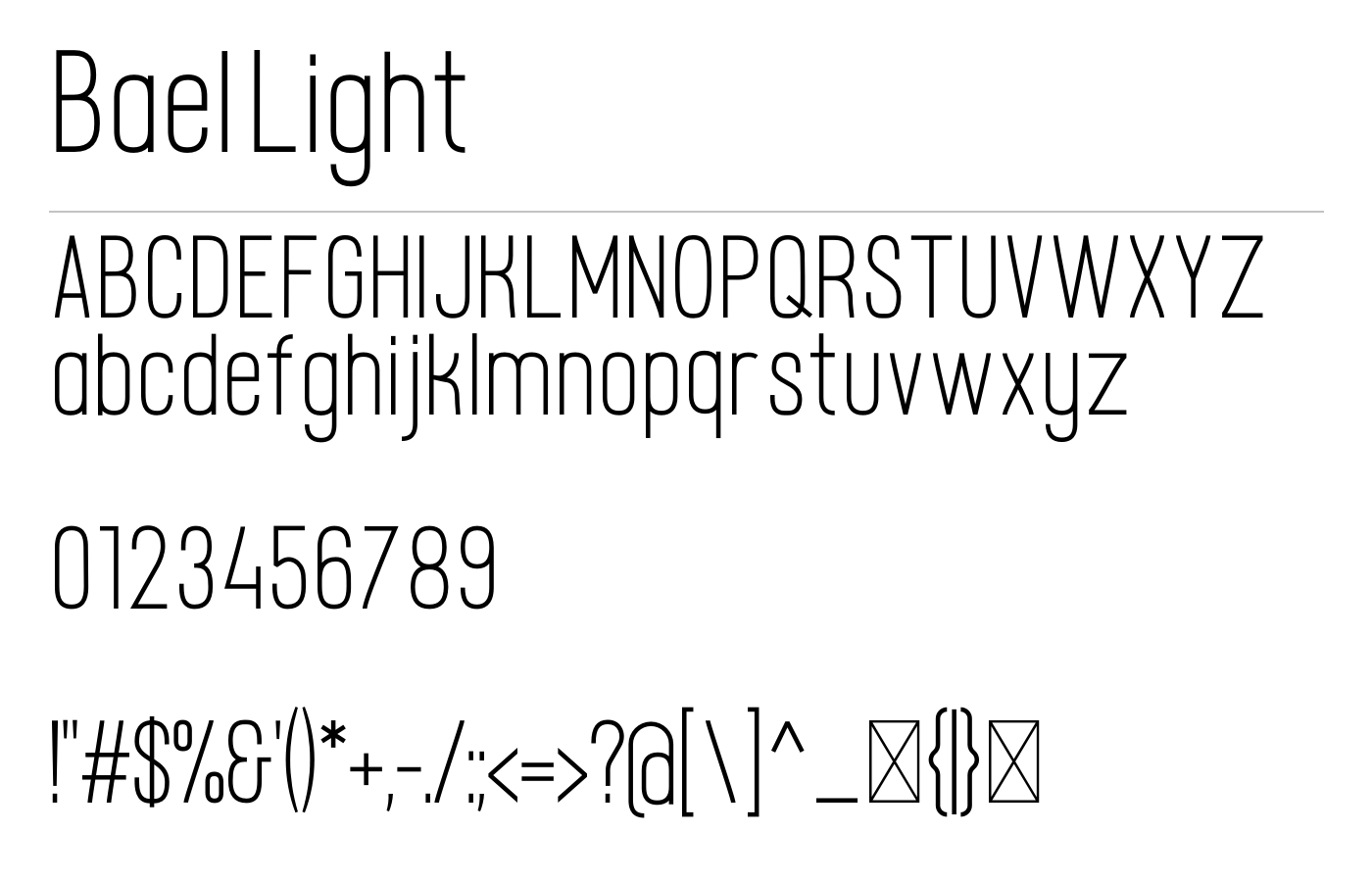
Bael Light is a sleek, modern sans serif font characterized by its tall, narrow letterforms and consistent light weight, offering a clean and minimal aesthetic. Its elongated proportions and simple, geometric strokes create an elegant yet approachable feel, making it ideal for contemporary branding, headlines, and digital interfaces where clarity and style are key. This font works especially well in settings that demand a refined, professional look without sacrificing readability.
Bael Font
About Bael Font
| Font family | Bael Font |
| Designer | Glyph44 |